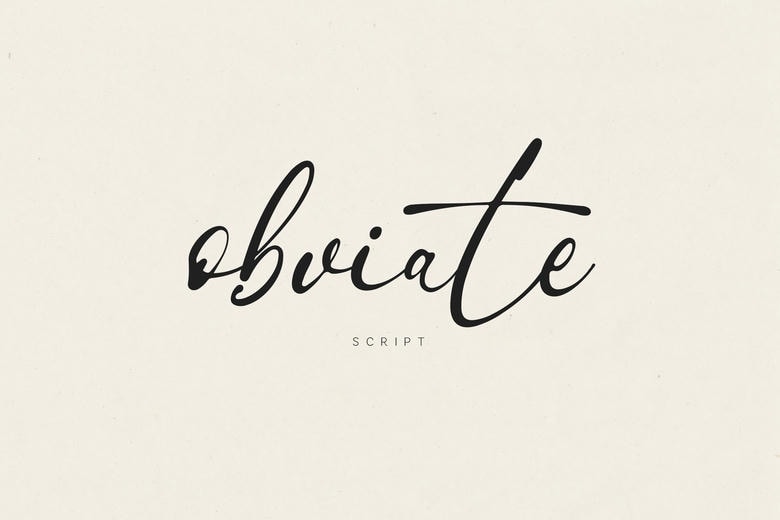
Obviate Font
Obviate Script is a contemporary handwritten typeface that has smooth and natural lines and fine signature style. The elegant and personality typeface is designed to be used in branding, logo design, wedding invitations, social media, packaging, and cool typography projects.
Obviate has a clean flow and an up-to-date appearance, which makes it a versatile and professional design that can be used efficiently in digital and print designs. It is a perfect font to use by designers, creatives and brands who want to come up with soft, high end and modern visual identity.
Obviate Script Handwritten Font